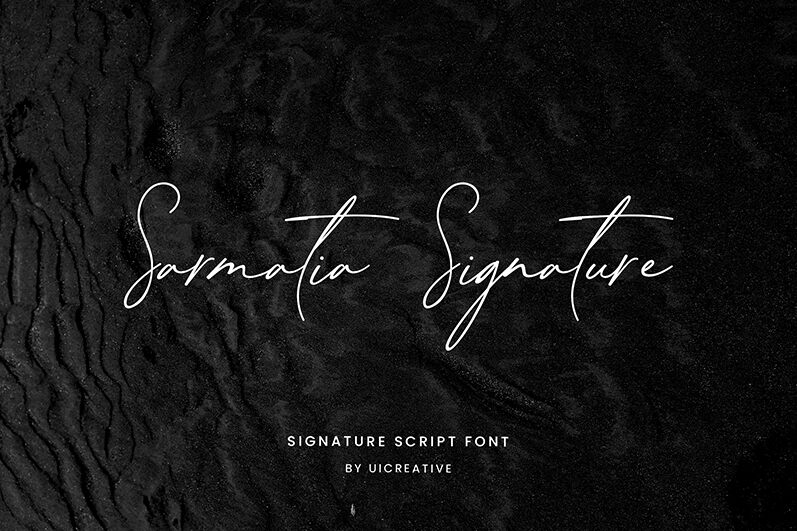
SarmatiaSignature
Sarmatia Signature font is a light condensed handwritten font designed by UI Creative. Elegant and sophisticated, the flowing letters offer an engaging form for a script style that feels delicate and modern. Every curving line seems slick, but with the proximity of each letter comes a beautiful rhythm that takes control of the whole presentation and its quality.
Put this free handwritten font to use with diaries for neat writing or personal branding! The workshop banner designed exclusively for Instagram will pull in those new clients once that dazzling opener is displayed. Get practicing your signatures too while preparing gift cards, bookmarks, newsletters, phone covers, tote bags, or Valentine’s Day candy packs if you’re feeling generous!